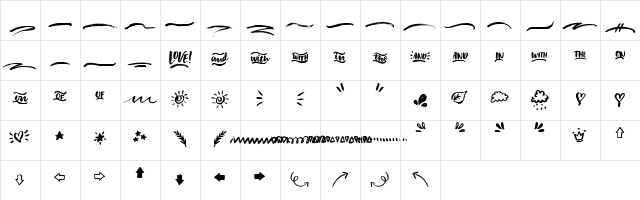
Complete Beautiful Day Extras Regular glyph index. Displaying only characters natively supported by Beautiful Day Extras Regular font.
Beautiful Day Extras is a composed and adaptable typeface that performs quietly and consistently across a wide range of design contexts.